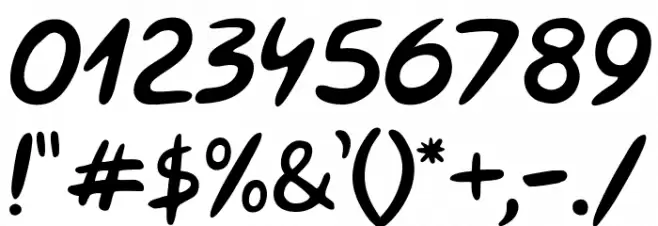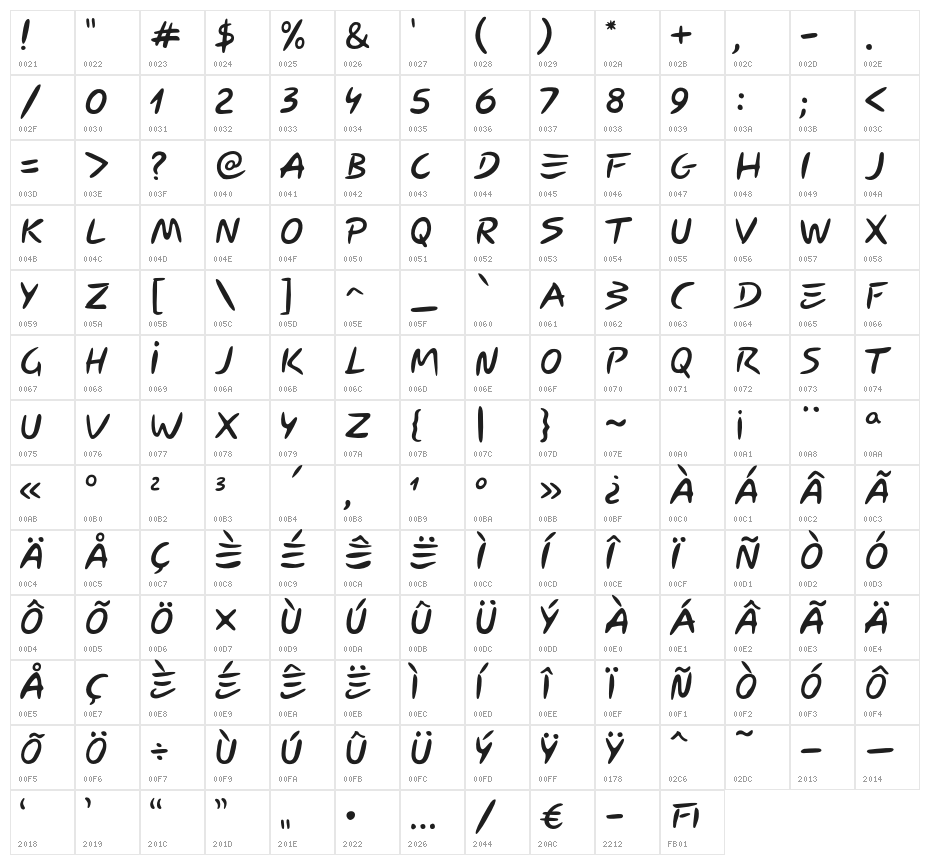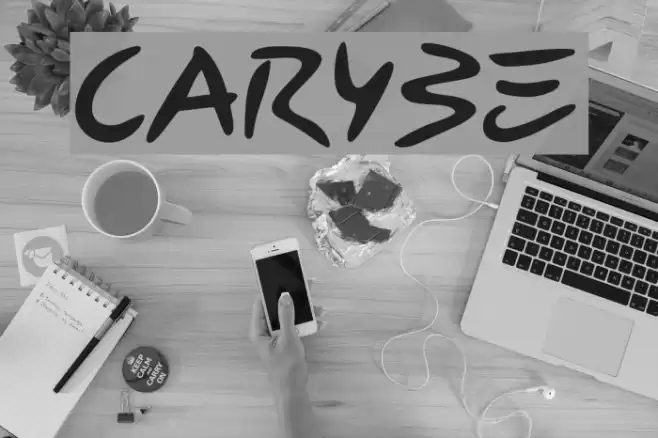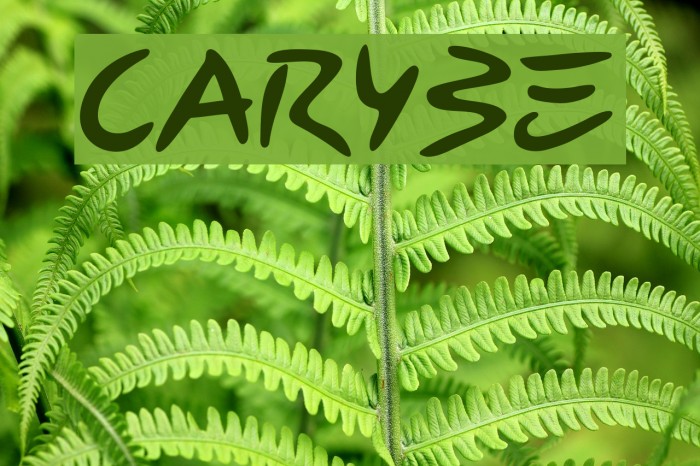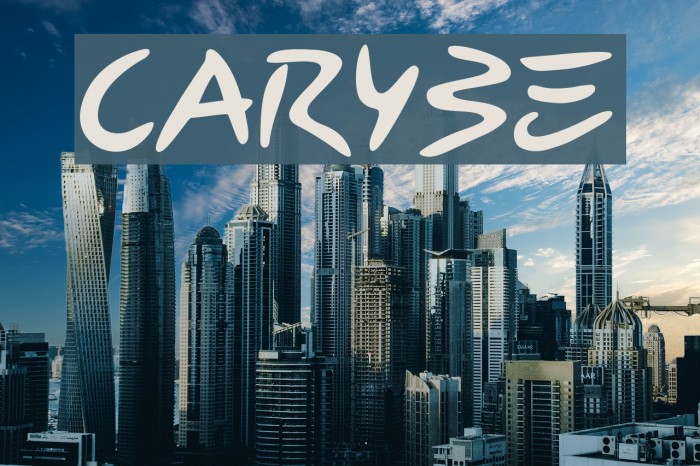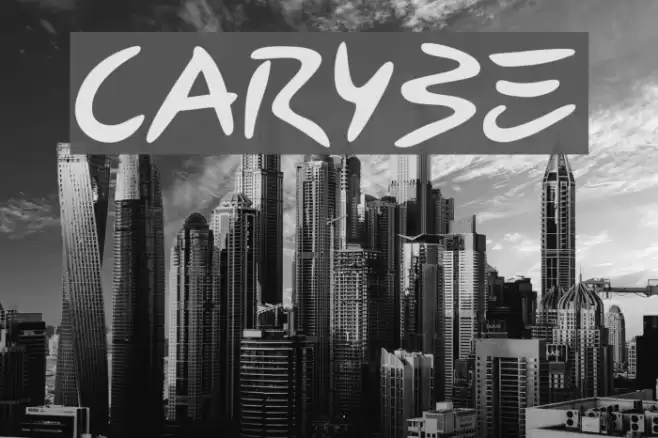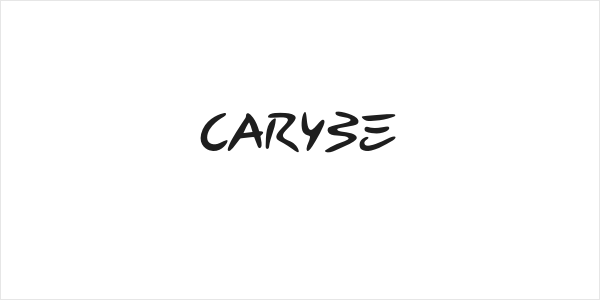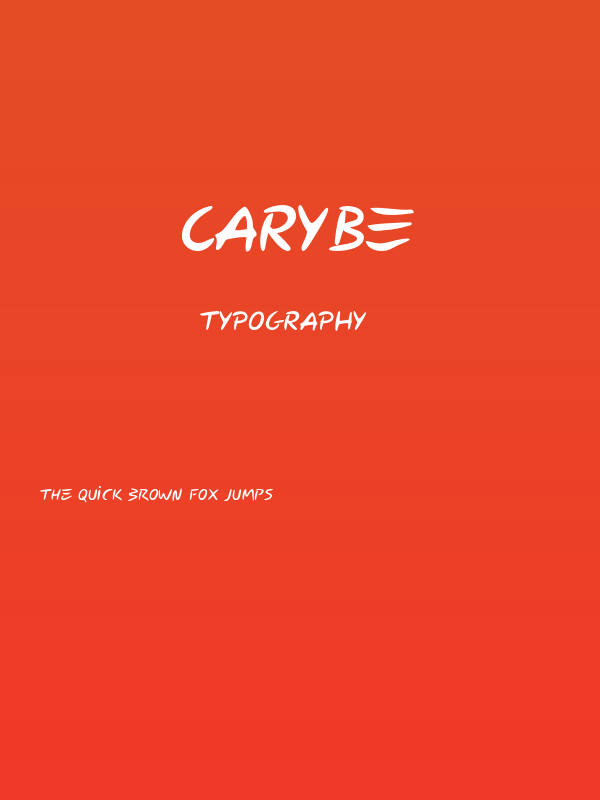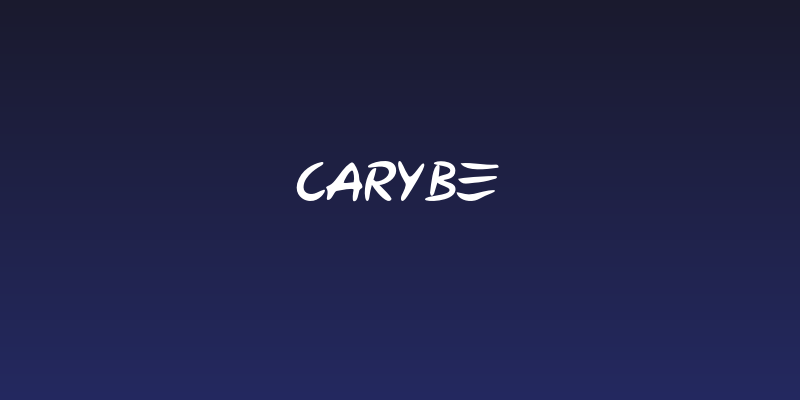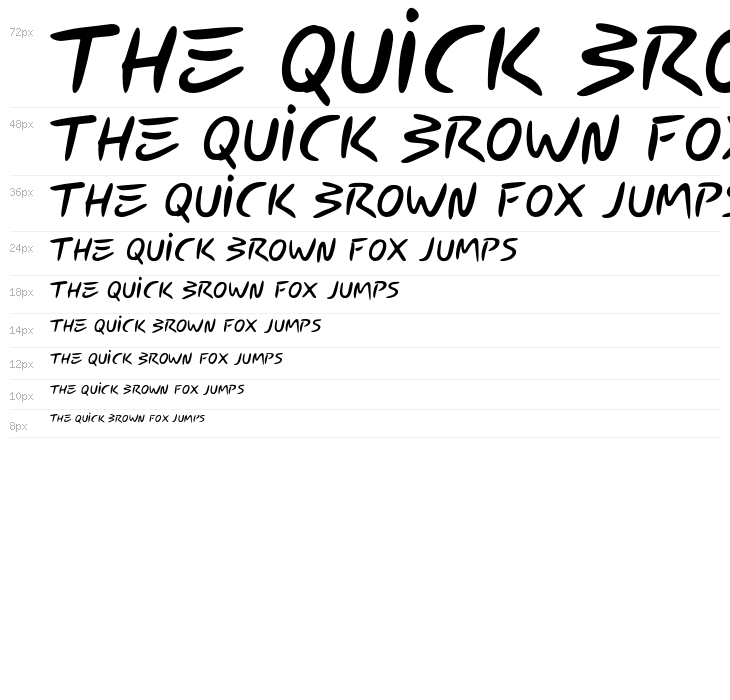
Carybe Font
Carybe Description
This font exhibits a bold and dynamic handwritten style, characterized by its fluid and energetic strokes. The letters are slightly slanted, giving a sense of movement and spontaneity. The uppercase and lowercase letters maintain a consistent style, with rounded edges and varying stroke thickness that adds a lively rhythm to the text. The numerals and special characters follow the same energetic design, ensuring a cohesive look across all elements. This font's playful and informal appearance makes it suitable for creative and expressive projects.